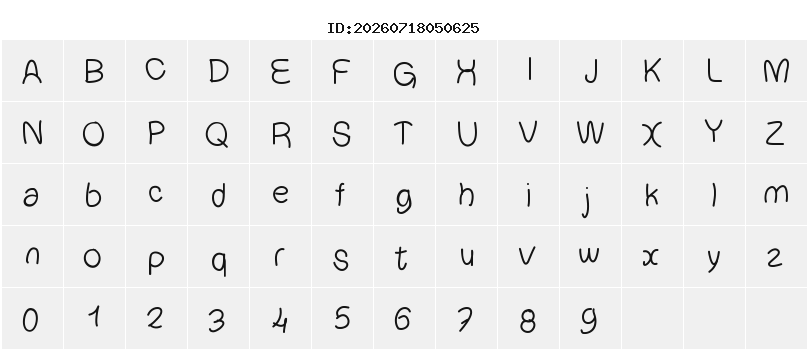
• Font Name: Chouchou
• Full Font Name: Chouchou
About Chouchou.ttf
Chouchou.ttf is a modern, elegant sans-serif font designed for ultimate readability and visual harmony. Perfect for branding, headlines, web design, and print materials.